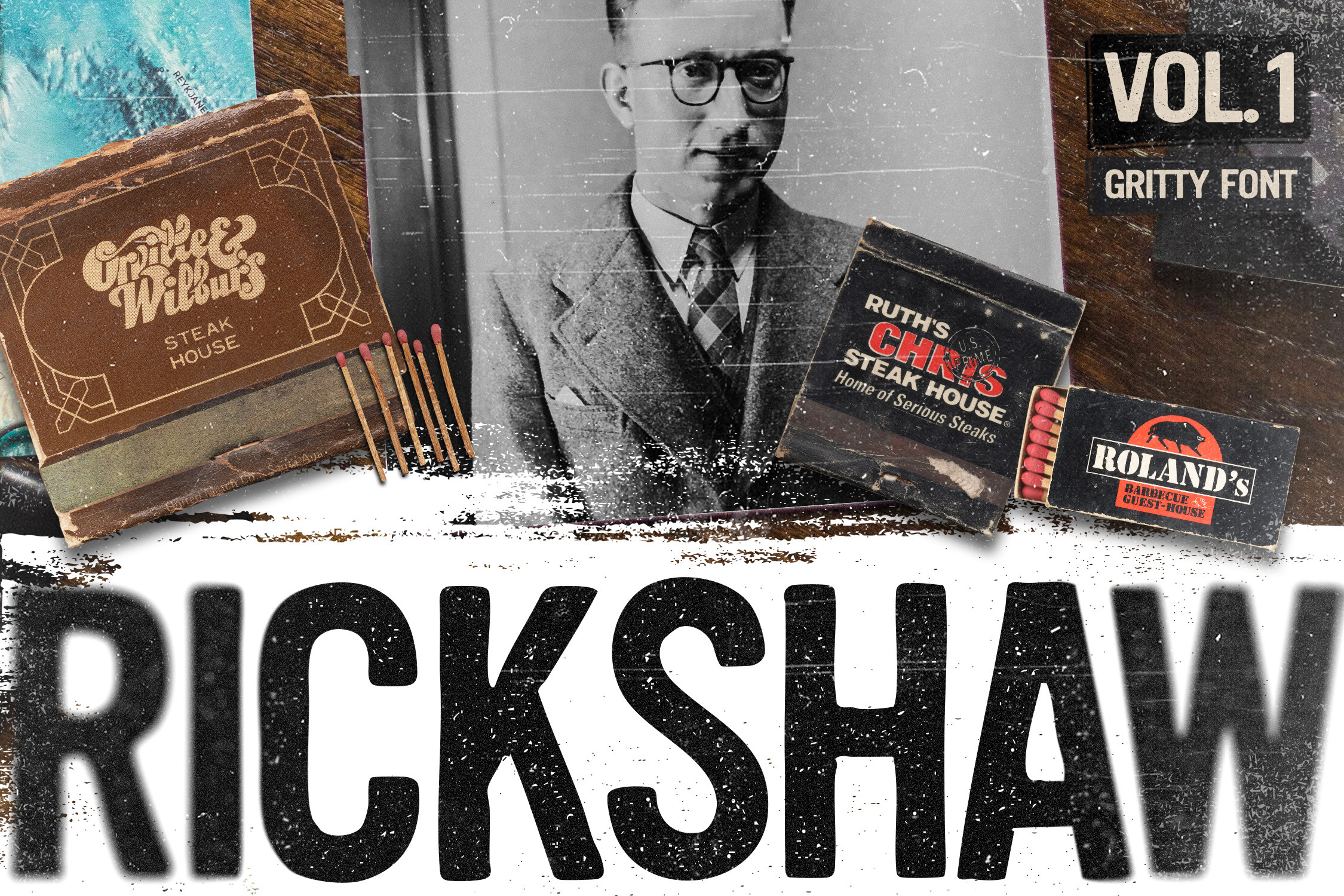
Rickshaw - Gritty Display Font
Introducing Rickshaw A bold, gritty and striking display font, full of texture! It has an old feel, perfect for vintage artwork and packaging, or even flyer designs. As its a textured font, it would be great for vintage pieces of digital artwork, labels, tags, and hero images on websites also. Let your old soul be unleashed with this bold sans-serif (ish!) display font. Its perfect usage is in a large format. In the download you will receive: - Rickshaw.otf which comes in uppercase, numbers & punctuation - Readme.txt support file Enjoy! I had fun creating this font. I am aiming to provide multilingual support soon!